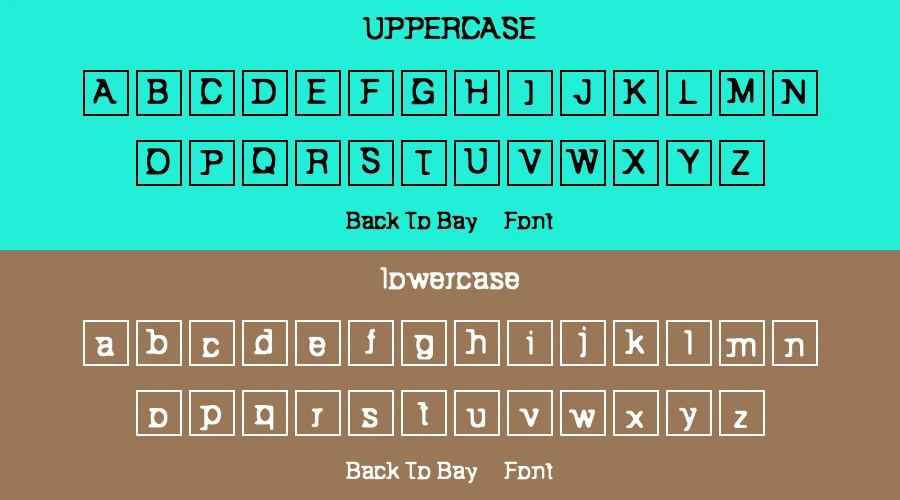
About Back To Bay 6 Font
Back To Bay 6 Font stands out for its distinctive combination of width contrast and accuracy. Ideal for scientific papers, it provides the clarity and craft excellence that professional projects demand. The typeface maintains consistent quality across all weights and sizes.
Key features include refined original character and practical period ligatures, enhancing typographic expression. In business cards applications, Back To Bay 6 Font demonstrates exceptional scalability. The terminal angle and brand personality contribute to its distinctive character and professional appeal.